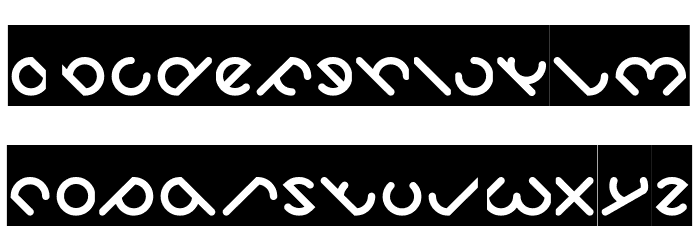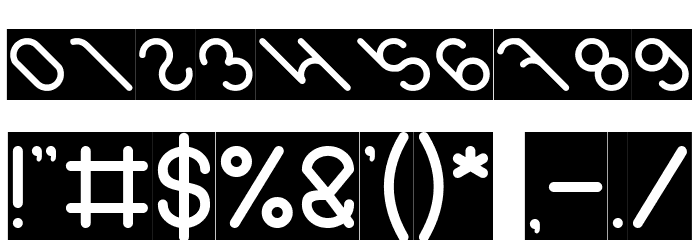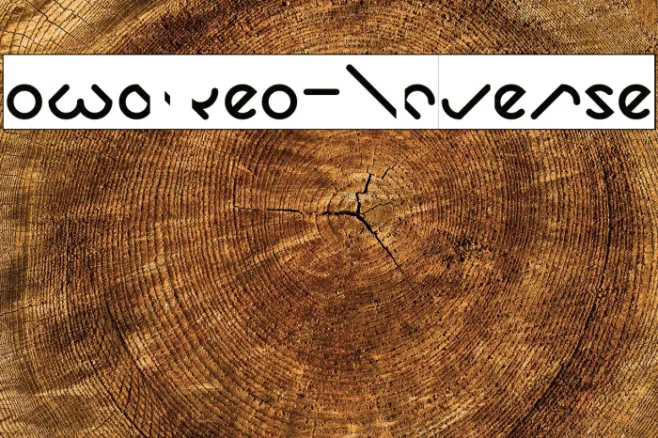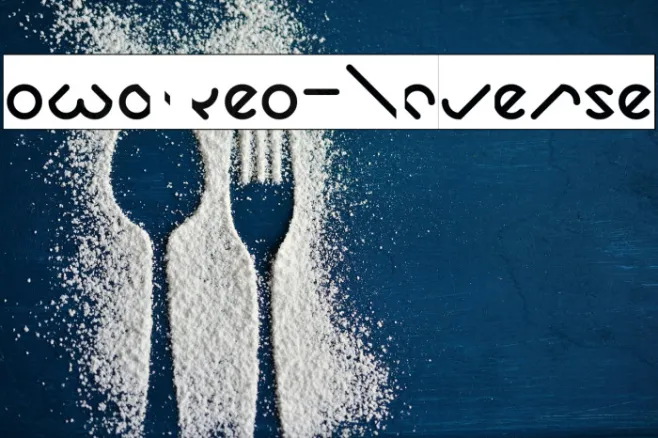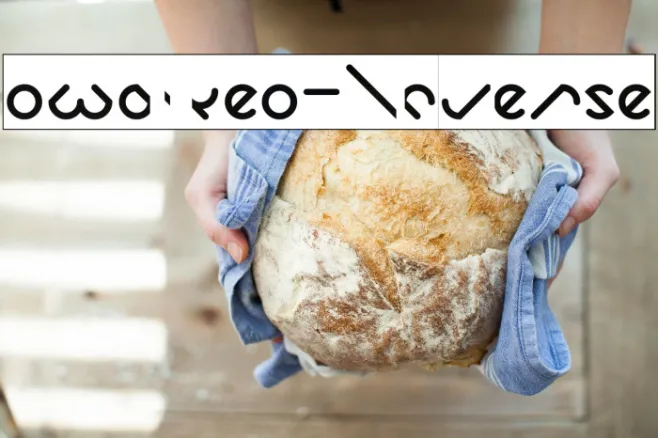
owaikeo-Inverse Font
This font features a unique and modern design with a futuristic twist. The characters are crafted with a consistent slant, giving them a dynamic and forward-moving appearance. The strokes are smooth and rounded, creating a sense of fluidity and motion. Each letter is distinct, yet they all share a cohesive style that makes the font easily recognizable. The numbers and special characters maintain the same stylistic elements, ensuring uniformity across all glyphs. This font's innovative design makes it stand out, offering a fresh take on traditional letterforms.
A modern, slanted font with smooth, rounded strokes and a futuristic style.
- Proposed Projects: Ideal for tech branding, sci-fi themed projects, modern art displays, and innovative product packaging.
- Overall Style: Futuristic